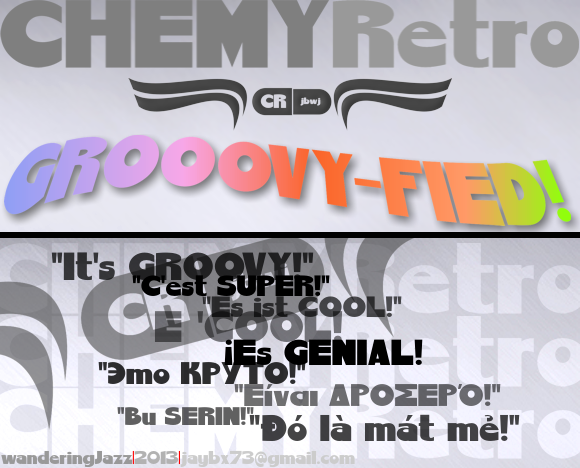
Preview and download Chemy Retro Font. Created by Jay Batchelor in Fancy Retro styles with 100% Free license.
A new groooovy 60s/70s font I created from scratch. I want to share my creations to the font/art community. Credit is fine, but not essential. I like to see what you do with them. Enjoy!!! Jay Batch WanderingJazz ::jaybx73@gmail.com:: |